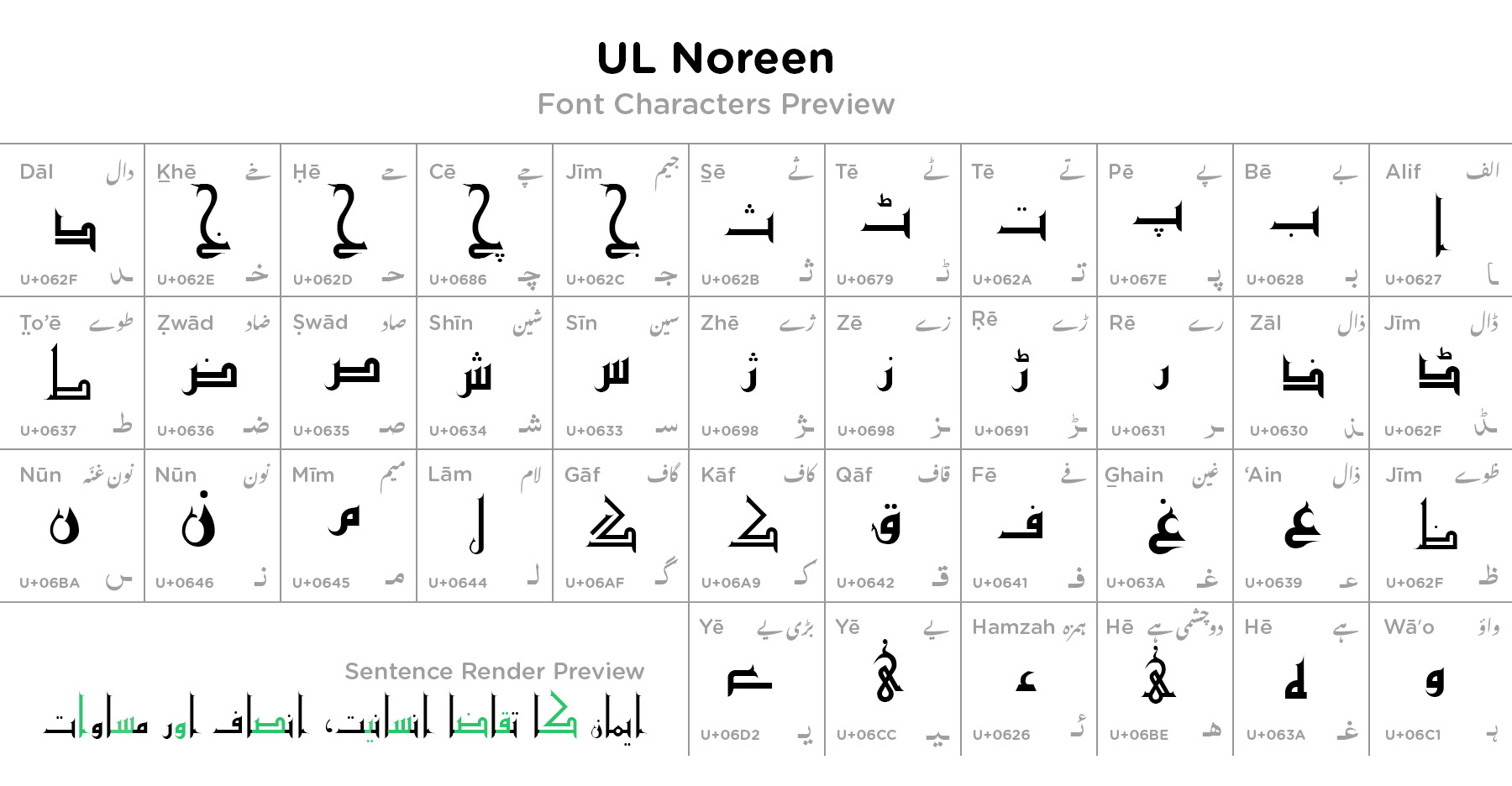
UL Noreen, a product of Urdulife.com, is a decorative Urdu font featuring flowing letterforms inspired by Naskh and Kufic scripts with modern influences. Released on August 22, 2013, UL Noreen offers 400 characters and 395 glyphs, supporting Arabic, Latin, Urdu, and more languages. With three distinct font weights, the font family offers a unique typographic experience for various design projects. These may include:
- UL Noreen Bold Regular
- UL Noreen Outline Regular
- UL Noreen Shaded Regular
Best suited for short texts, UL Noreen's highly decorative and intricate design may affect legibility, particularly at smaller sizes. The bold weight exhibits a thick, strong stroke, while the Outline style features hollow letterforms, which are made up of two thin lines. In contrast, the Shaded Outline adds a thick shadow outside its outer layer, creating a visually striking effect. The distinct design of this font is characterized by sharp angles and flowing letterforms and lends itself well to advertising, creative posters, clothing designs, calligraphy, and more. Despite its decorative nature, it maintains equal spacing and sharp edges, contributing to its overall aesthetic appeal. Moreover, it offers a unique and visually captivating typography solution, whether used for branding, artistic projects, or decorative purposes.